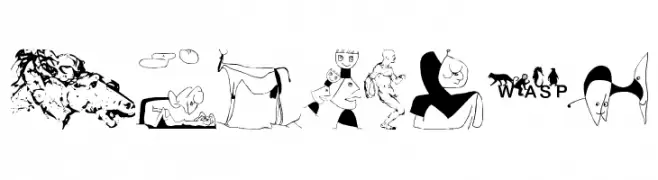
A bold, decorative font with a dynamic echo effect.
A decorative font inspired by prehistoric cave paintings with unique pictograms.
A bold, angular font inspired by ancient scripts, ideal for historical-themed projects.
A decorative font inspired by medieval and knightly themes, featuring intricate and ornate designs.
A collection of sun and celestial-themed decorative icons.
Abstract, circular, and highly decorative letterforms with unique motifs.
A playful, hand-drawn illustrative font with unique doodle-based characters.
A decorative font inspired by ancient stone age pictographs.
Abstract, logo-like font with complex, geometric designs.